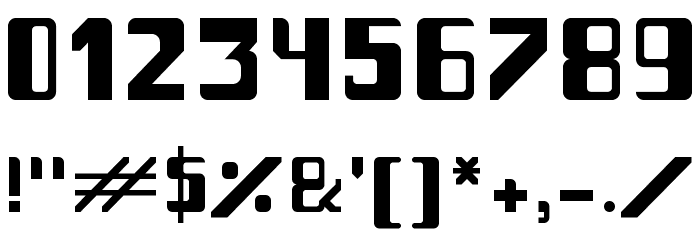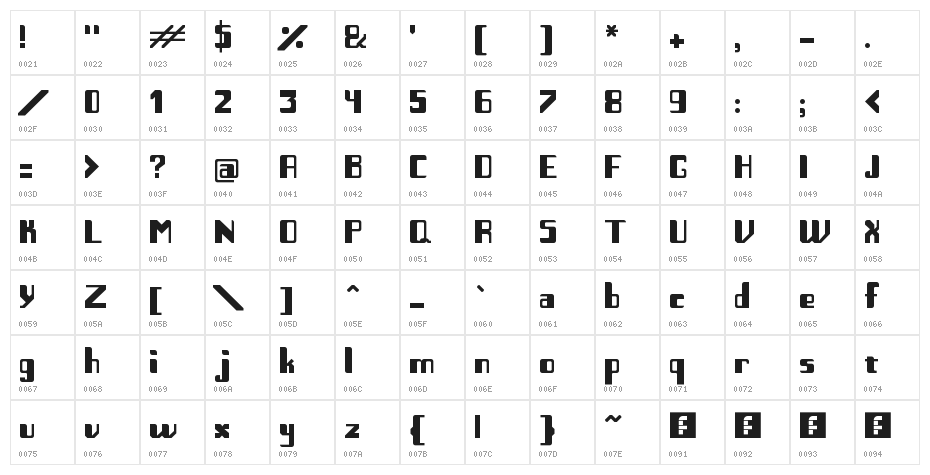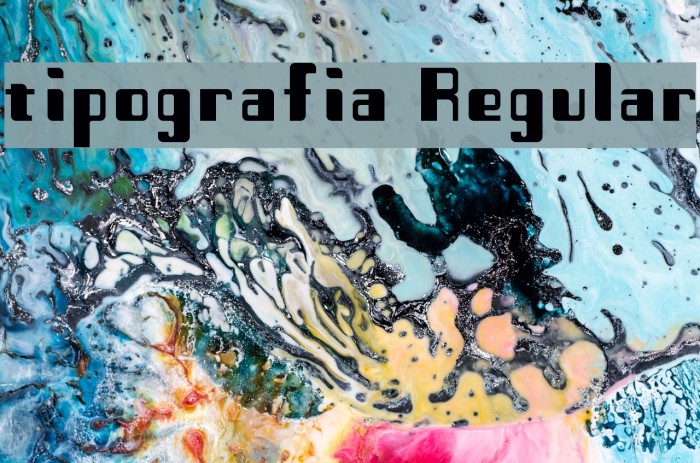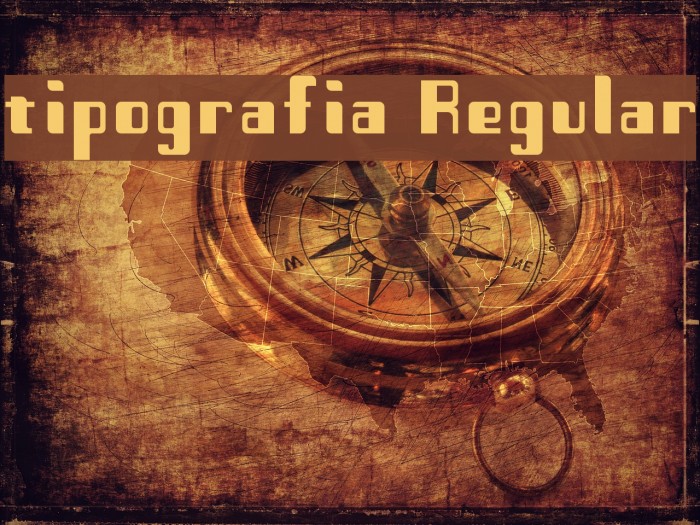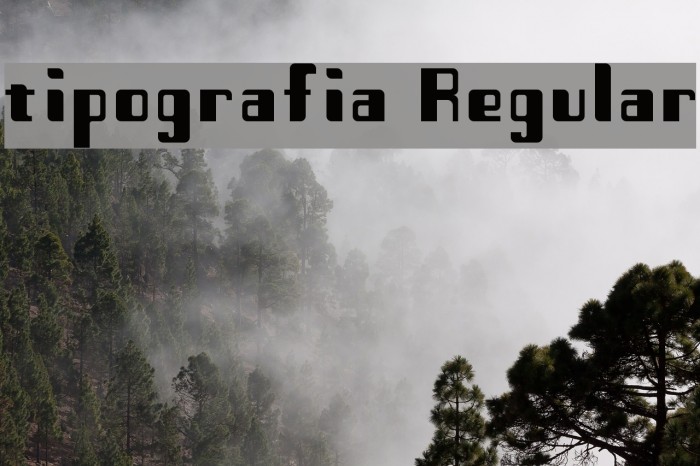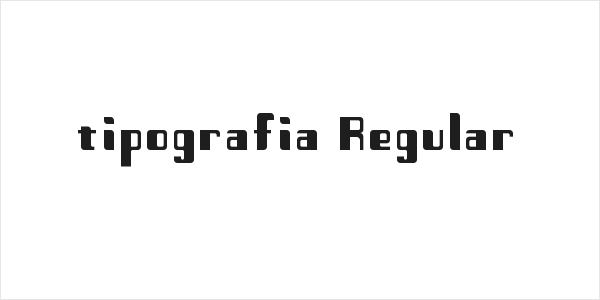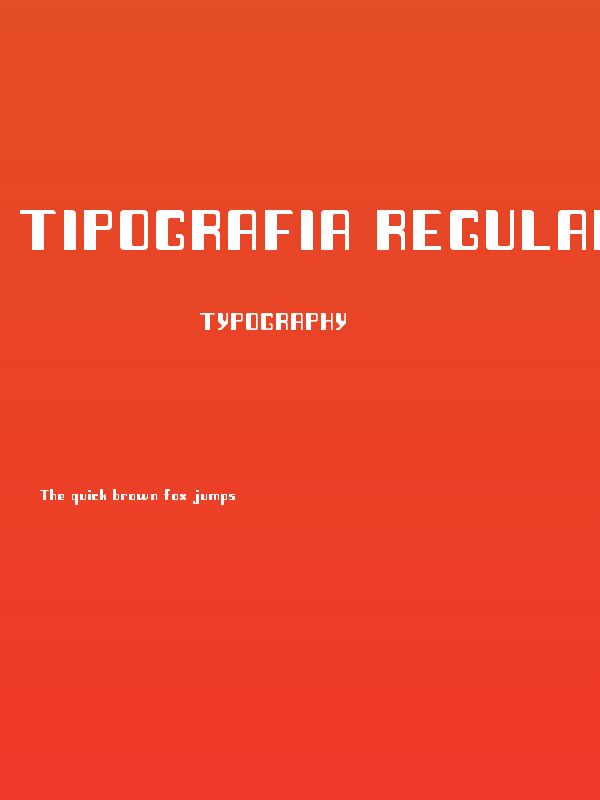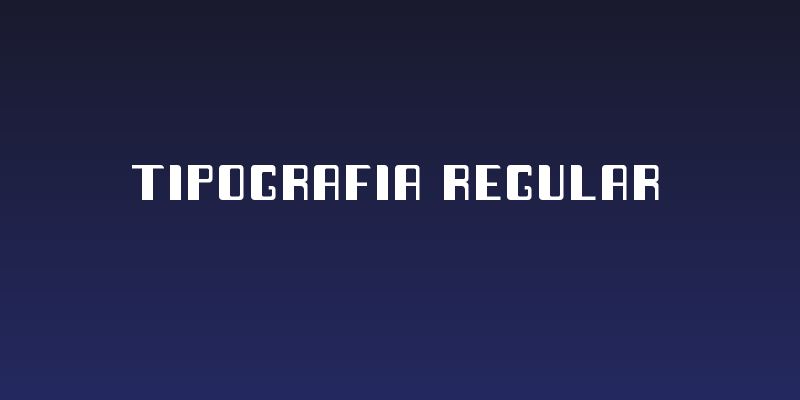
tipografia Regular Font
tipografia Regular Description
This font features a bold and geometric design, characterized by its strong, angular lines and uniform stroke width. The uppercase letters exhibit a blocky appearance with minimal curves, giving a modern and industrial feel. Lowercase letters maintain the same geometric style, ensuring consistency across the typeface. Numbers are equally bold and clear, making them highly legible. Special characters are designed to match the overall aesthetic, providing a cohesive look. The font's structure is robust, making it suitable for impactful and attention-grabbing designs.